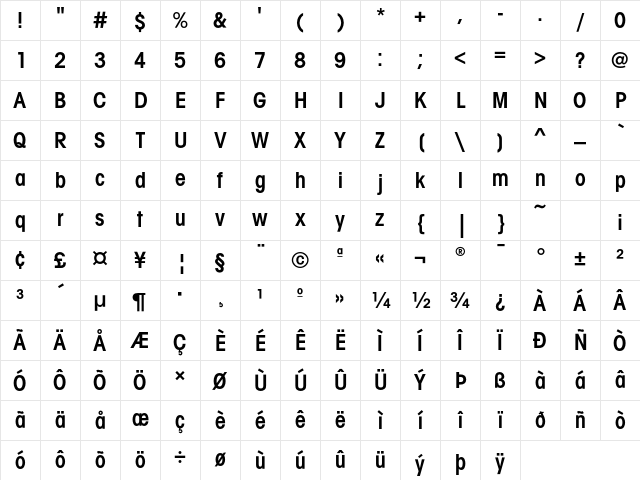
AvantGardEF DemiCond
Style: DemiCond
AvantGardEF DemiCond
Design Context for AvantGardEF
AvantGardEF is a composed and adaptable typeface that performs quietly and consistently across a wide range of design contexts. Its narrow stance lets it pack a punch even in space-constrained designs.